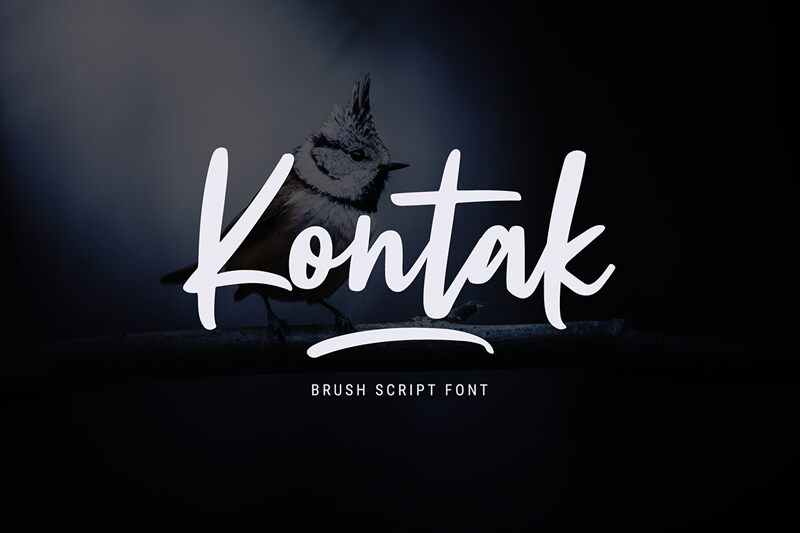
Kontak, a captivating handwritten font from Weape Studio, exudes a warm, organic charm that effortlessly captivates the eye. With its expressive, free-flowing strokes and a touch of playful irregularity, this font carries a distinct personality that evokes a sense of authenticity and personal touch. The fluid, calligraphic lines and subtle variations in thickness lend a harmonious, handcrafted quality, making Kontak an excellent choice for projects seeking a genuine, heartfelt aesthetic.
Kontak's versatility shines through, making it a versatile option for a wide range of design applications. From editorial layouts and branding materials to social media graphics and event invitations, this font's distinctive character can elevate the visual impact and emotional resonance of any project. Its adaptability allows it to seamlessly integrate into diverse design contexts, ensuring a cohesive and visually captivating final result.
Kontak